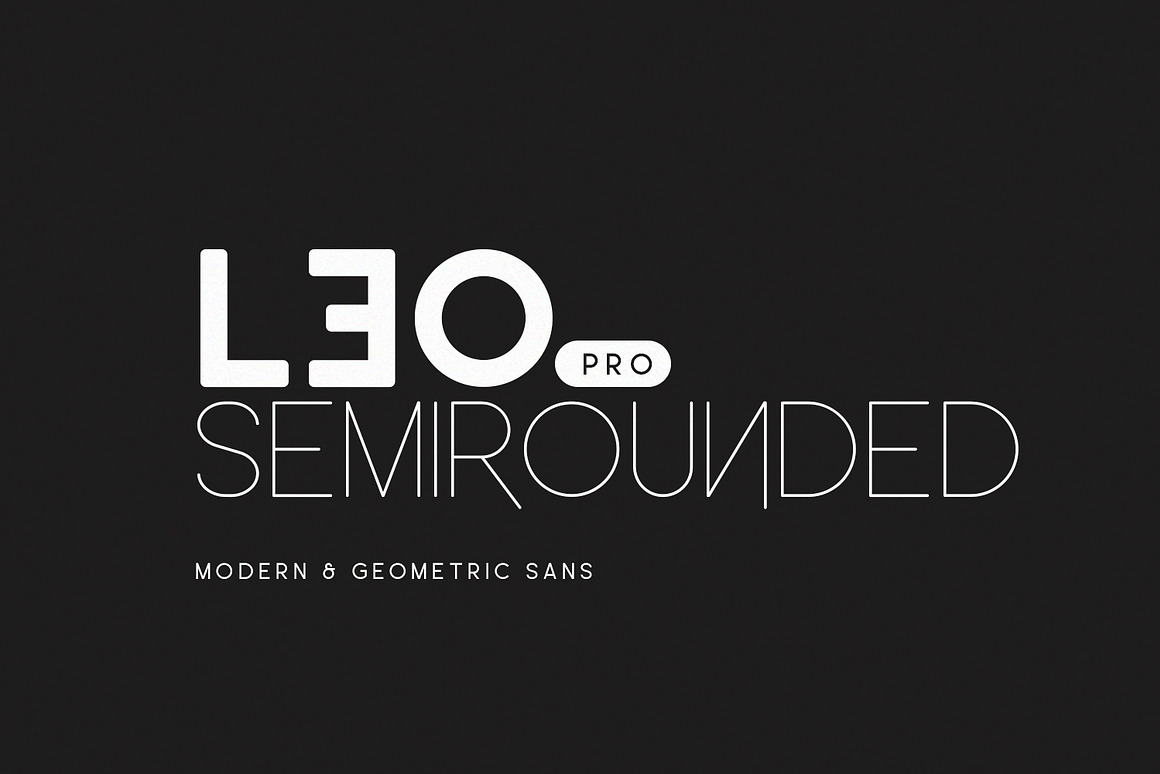
Leo SemiRounded Font
Leo SemiRounded Font is perfect for friendly branding, modern logos, tech startups, children's products, approachable signage, contemporary advertising, user interfaces, educational materials, healthcare communications, and welcoming visual communications. This versatile typeface excels in both digital and print applications requiring approachable professionalism.
Leo SemiRounded Font is exciting because it combines professional clarity with friendly approachability through subtle rounded edges that create warm visual appeal while maintaining excellent readability. Its balanced character generates trustworthy brand experiences that resonate with audiences seeking reliability, innovation, and human connection.
The Leo SemiRounded Font family includes regular, bold, light, italic, condensed, extended, and display variants, providing designers with comprehensive typographic options for various design scenarios and friendly communication requirements.
Leo SemiRounded Font represents the perfect balance between professional authority and human approachability, delivering exceptional typography that bridges corporate credibility with friendly accessibility. This thoughtful typeface combines the reliability of traditional sans serif design with the warmth of rounded letterforms, creating typography that communicates both competence and approachability. The font's balanced character makes it particularly valuable for technology companies, healthcare organizations, educational institutions, and service-oriented brands that require typography capable of conveying professional expertise while maintaining human connection and accessibility.
The thoughtful construction of Leo SemiRounded Font demonstrates careful attention to modern design principles, with subtly rounded corners and balanced proportions that create inviting visual compositions without sacrificing professional appearance. This harmonious approach ensures excellent performance across diverse applications, from digital interfaces to corporate communications where friendly professionalism enhances user experience and brand trust. The font's approachable qualities make it especially effective for brands in technology, healthcare, education, and consumer services that must communicate expertise through accessible, trustworthy visual design.
Whether developing approachable brand identities, creating friendly communications, or designing user-centered marketing materials, Leo SemiRounded Font provides the balanced professionalism needed for communications that inspire trust and convey expertise while maintaining human warmth and achieving optimal user engagement across all modern platforms requiring approachable authority.